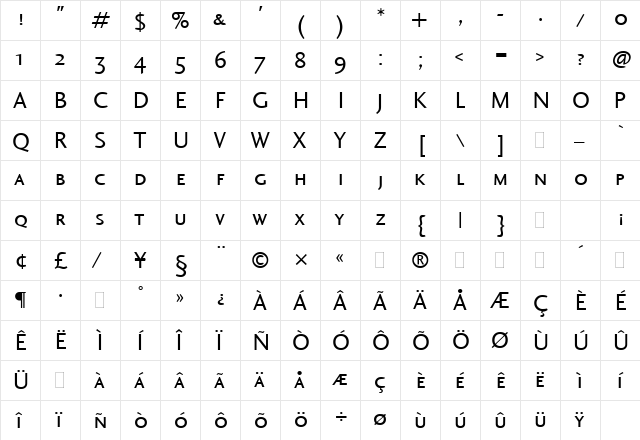
Charlotte Sans Small Caps Regular
| Foundry | International Typeface Corporation |
| Designer | Michael Gills |
Design Context for Charlotte Sans Small Caps Typeface
Charlotte Sans Small Caps is a composed and adaptable typeface that performs quietly and consistently across a wide range of design contexts.